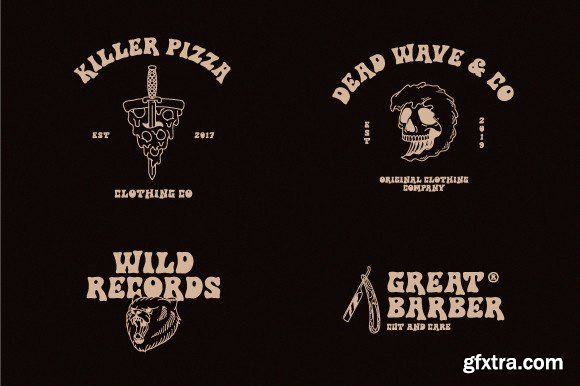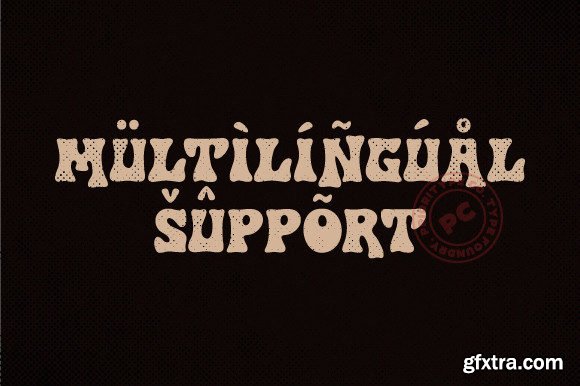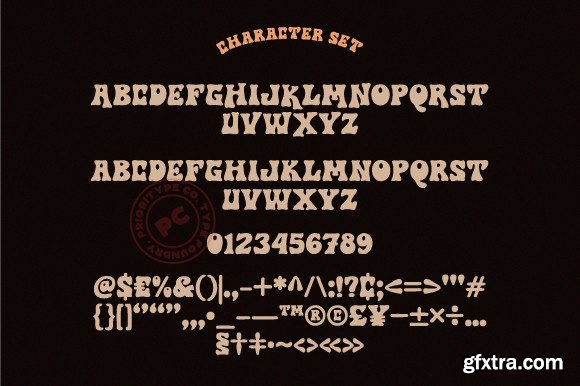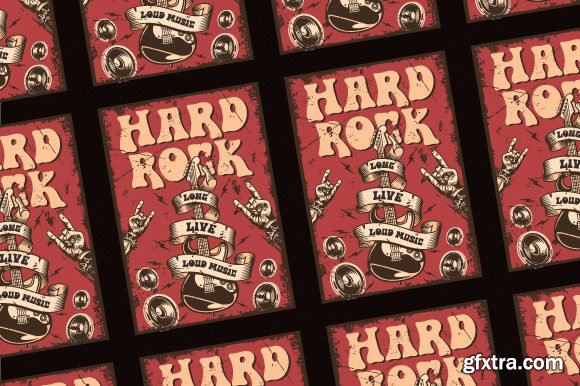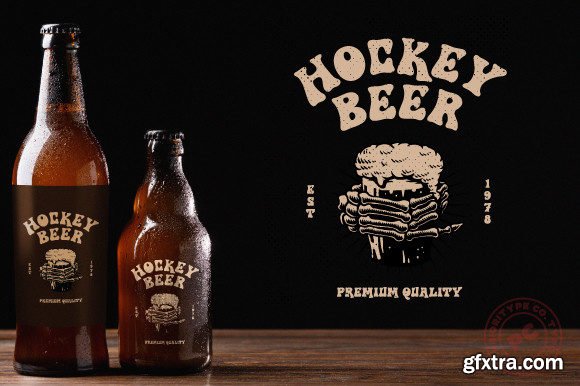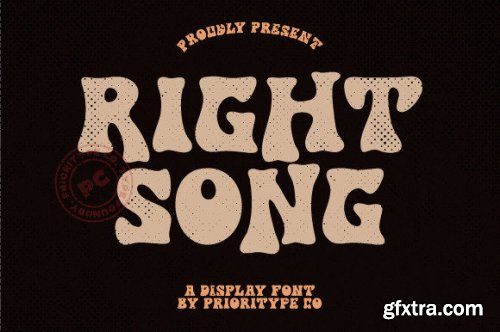
Right Song Font
Presenting new display fonts. Yes, “Right Song” is a powerful display font for uses such as logos, posters, merchandise or packaging designs. There are several differences in the shape of upper and lower case letters. This makes for an interesting combination when used.
Features: Uppercase, Lowercase, Numeral, Punctuation & Multilingual.